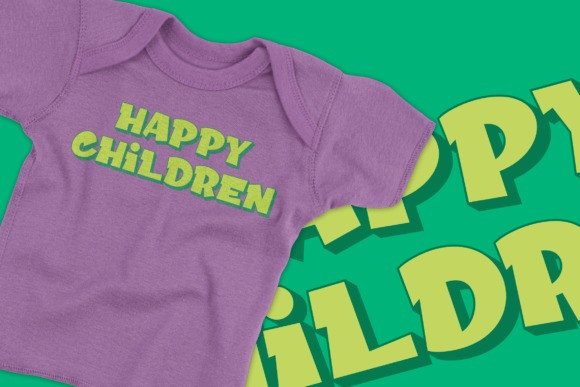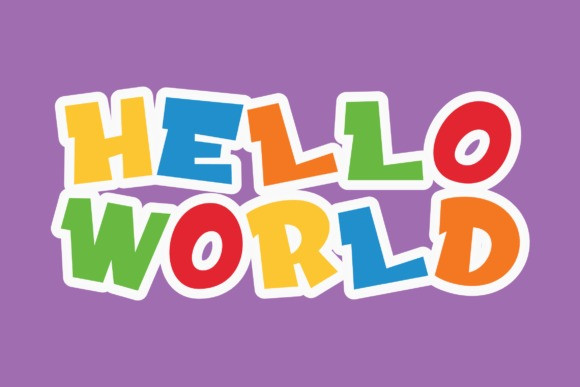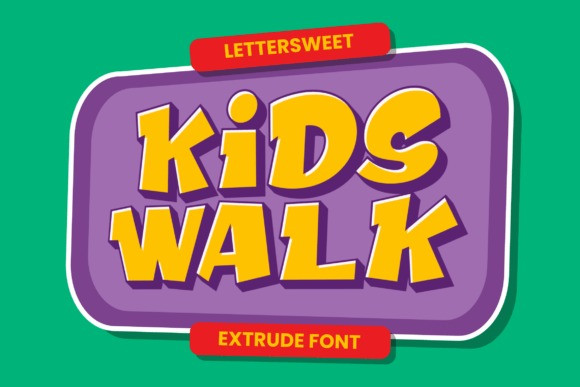
Kids Walk Font
Kids Walk Display Font is a kid font with extrude, inspired by the joyful world of colorful children. The unique characteristics make it suitable for various purposes such as quotes, t-shirt designs, flyers, YouTube channels, labels, logos, and every other design which needs a playful touch.